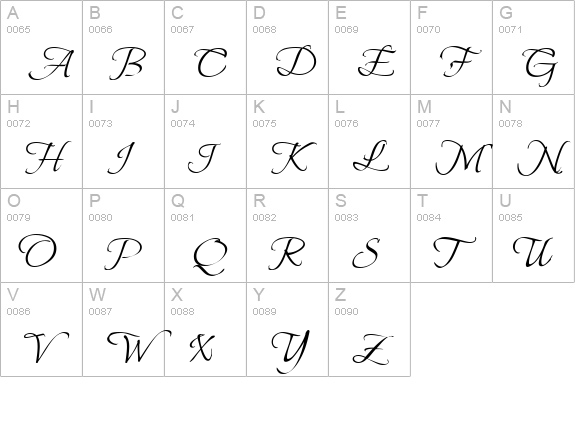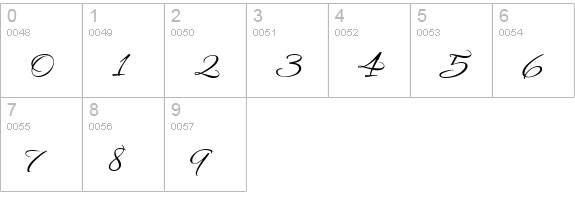
BeauRivageOne Font Details
BeauRivageOne font is a beautifully crafted typeface that exudes elegance and sophistication. With its graceful curves and timeless design, this font is perfect for adding a touch of class to any project. The flowing lines and intricate details of BeauRivageOne make it a standout choice for invitations, logos, and other creative endeavors. The best part? BeauRivageOne font is completely free to download! You can easily access this stunning typeface at FontsMarket.com and enhance your designs with its impeccable style. Whether you're looking to elevate your branding or create stunning graphics, BeauRivageOne font is sure to impress with its versatility and charm. Download it today and add a touch of luxury to your projects!